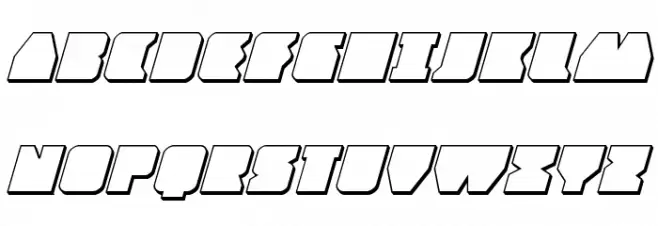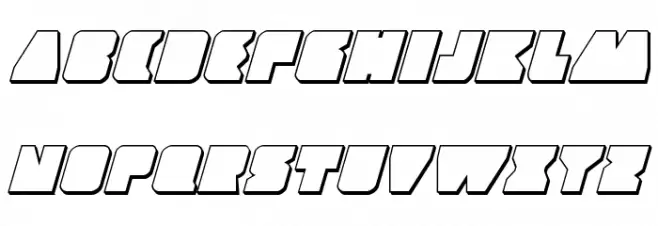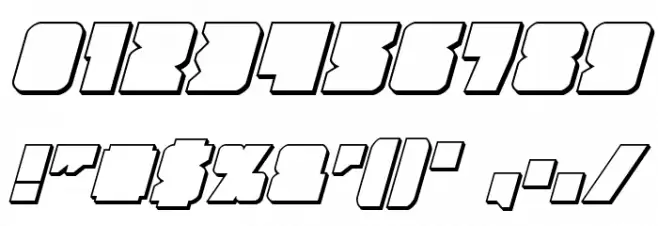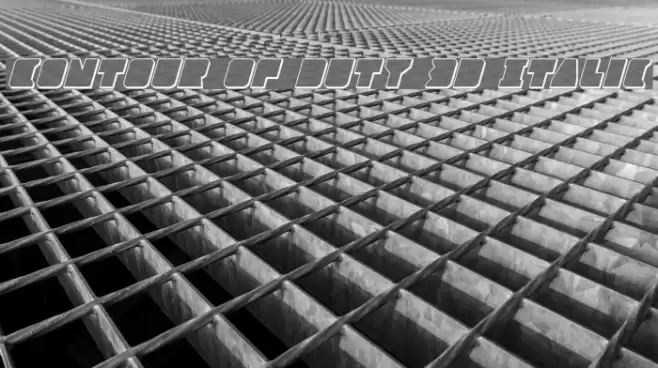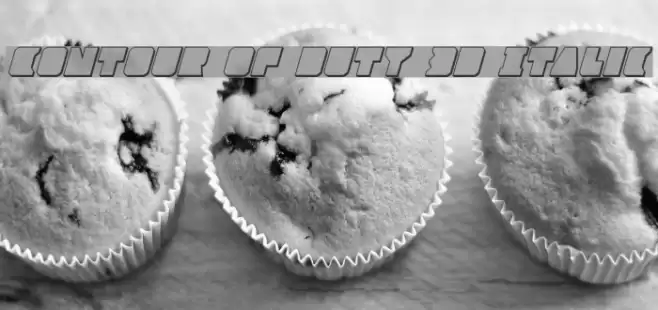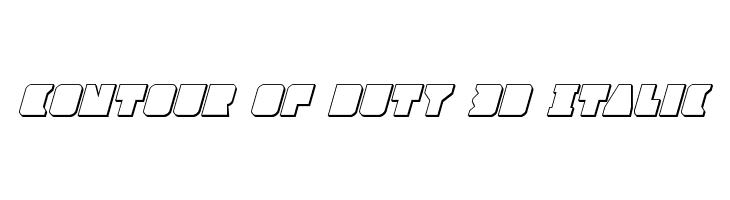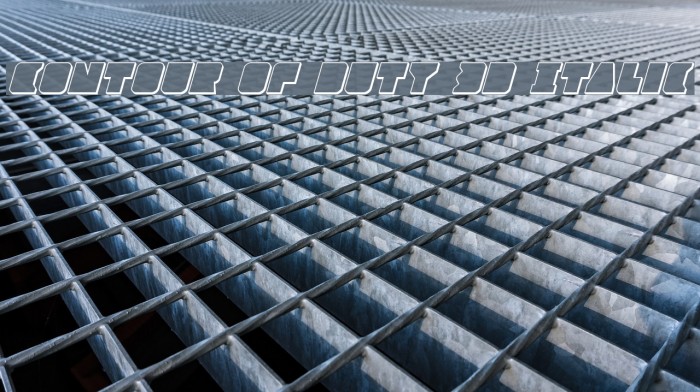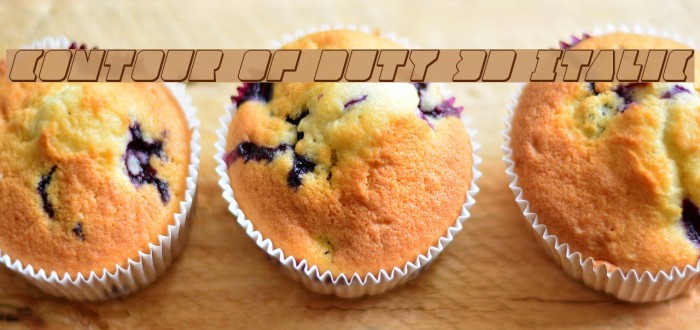
Contour of Duty 3D Italic
This font features a bold, three-dimensional style with an italic slant, creating a dynamic and futuristic appearance. The characters are outlined, giving them a hollow look that enhances their 3D effect. The geometric shapes and sharp angles contribute to a modern and edgy aesthetic. Each letter is distinct, with a consistent thickness that maintains readability while adding a unique visual flair. The numbers and special characters follow the same design principles, ensuring uniformity across the entire character set. This font is ideal for projects that require a strong, impactful presence.
A bold, 3D italic font with a futuristic and dynamic style.
- Proposed Projects: Ideal for video game titles, sci-fi movie posters, tech branding, and futuristic event flyers.